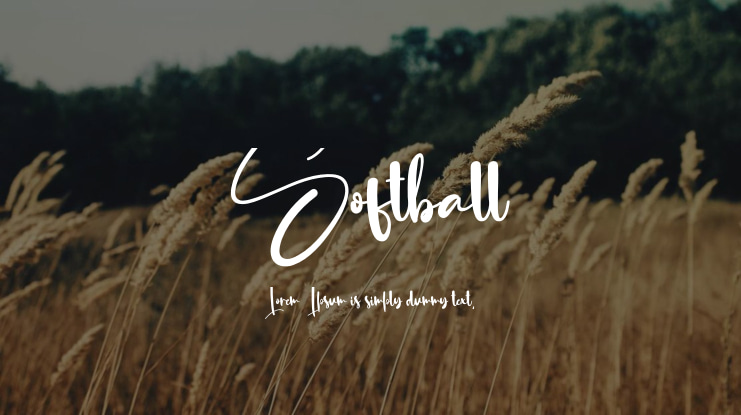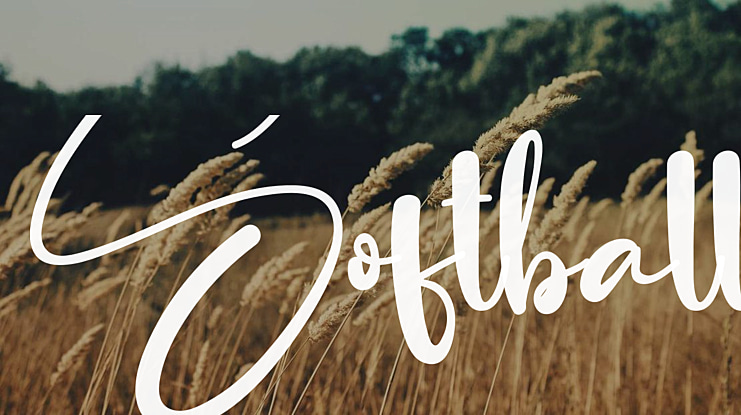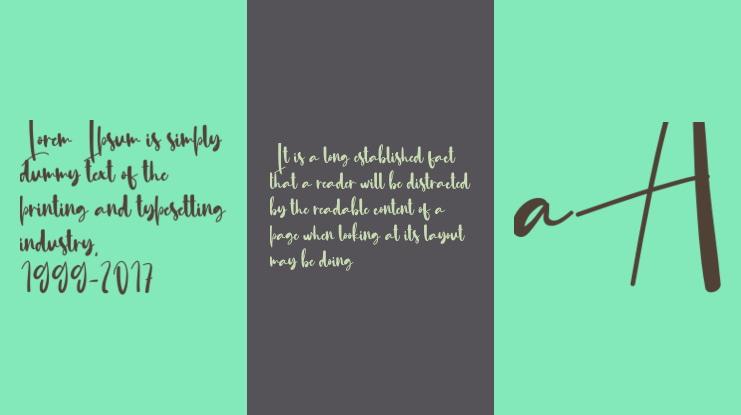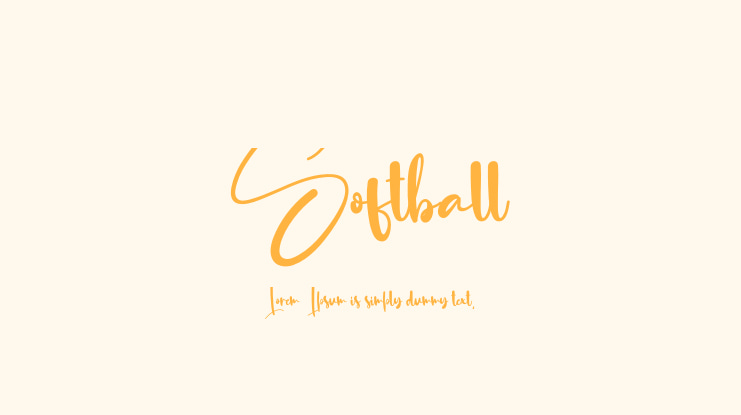
Softball Font
Our latest collection features stylish letters that are perfect for various applications such as wall displays, wedding invitations, social media post logos, advertisements, product packaging, designs, labels, photography, watermarks, invitations, stationery, and any project that requires elegant handwriting.
Softball font preview